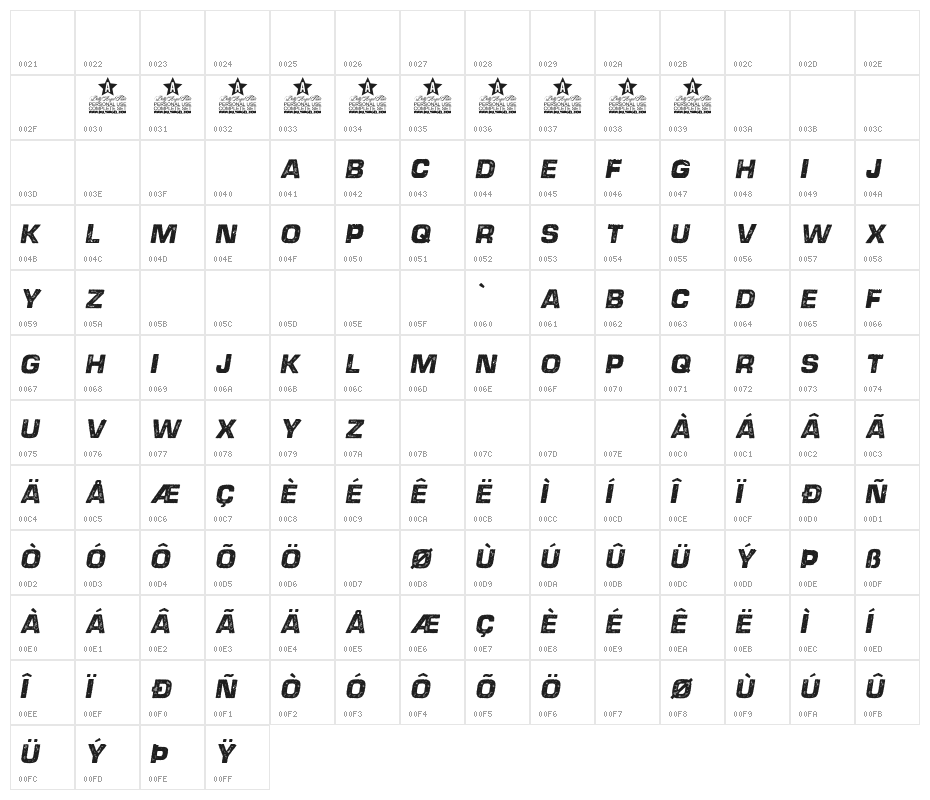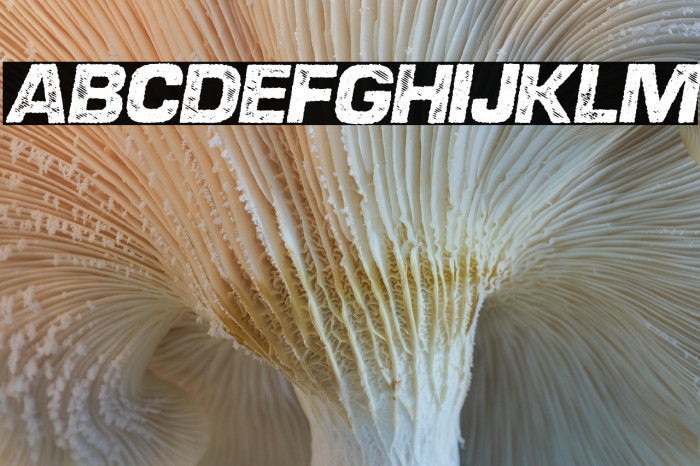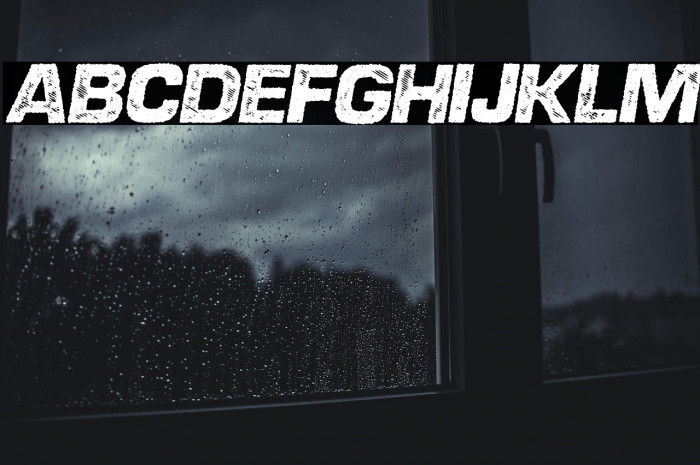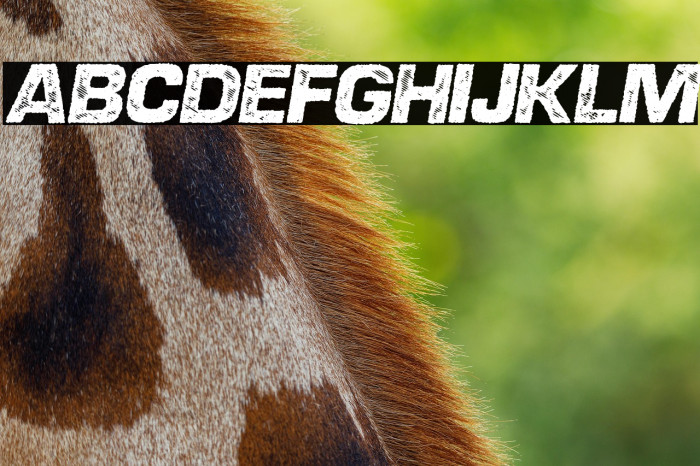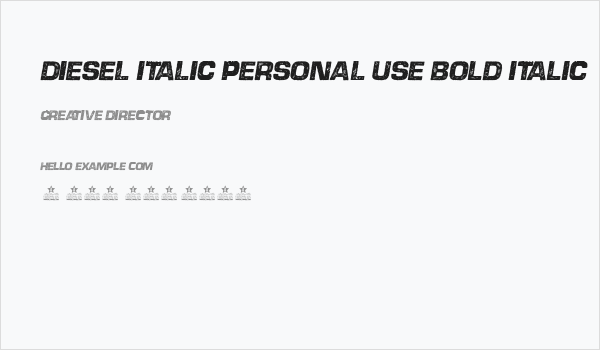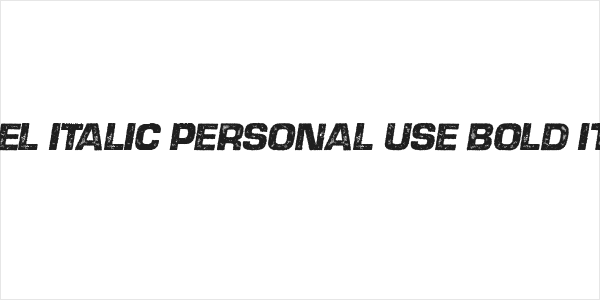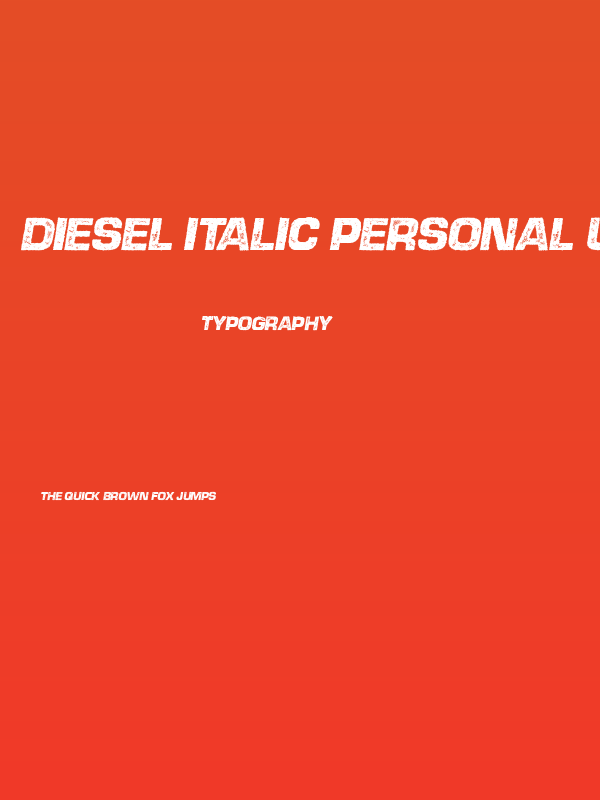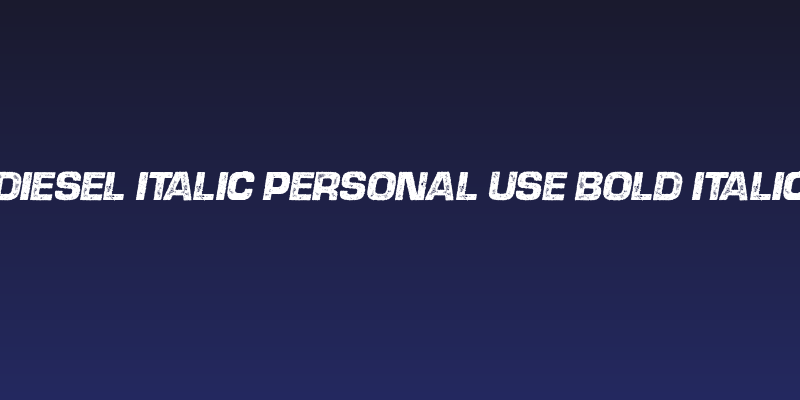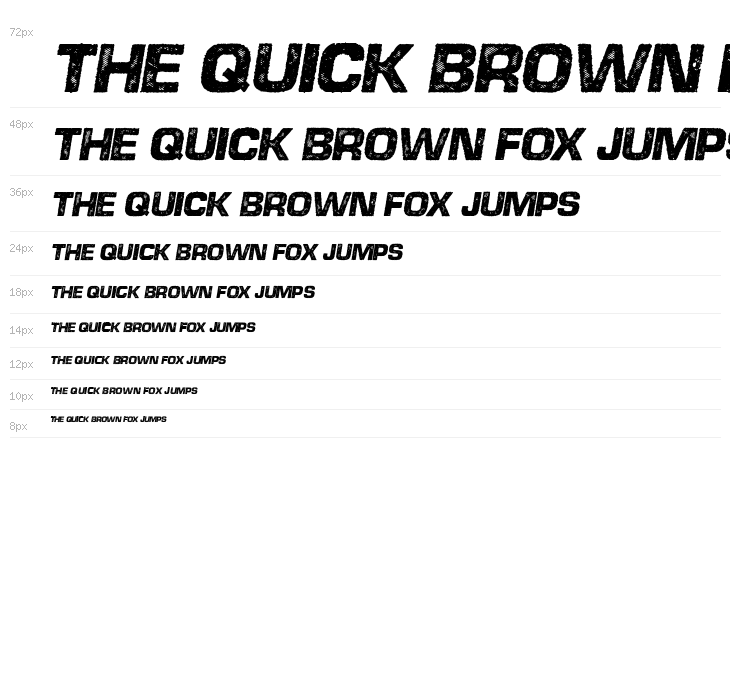
DIESEL ITALIC PERSONAL USE Bold Italic Font
This font features a bold and italicized style with a distressed, textured appearance that gives it a rugged and dynamic look. The uppercase letters are prominent and convey a sense of strength and impact. The italic slant adds a sense of motion and urgency, making it ideal for attention-grabbing designs. The distressed texture adds a vintage or grunge feel, making it suitable for projects that require a bold statement with a touch of edginess. The font's unique style makes it stand out, offering versatility for various creative applications.
Proposed ProjectsIdeal for posters, album covers, branding, and any project needing a bold, edgy look.